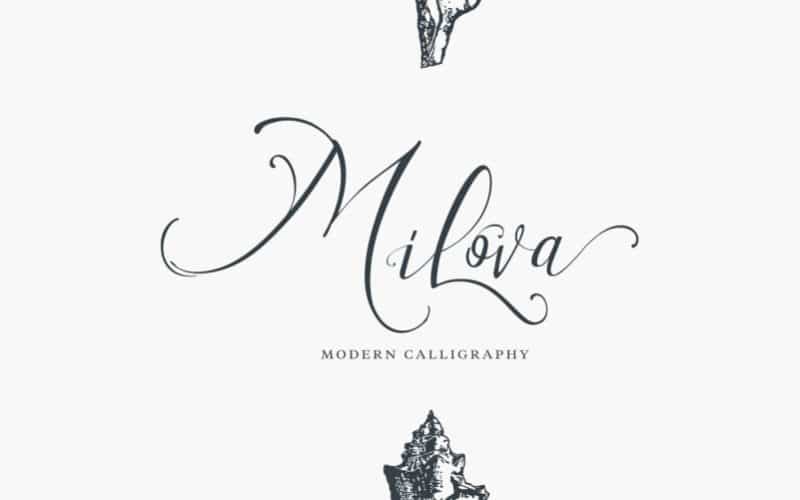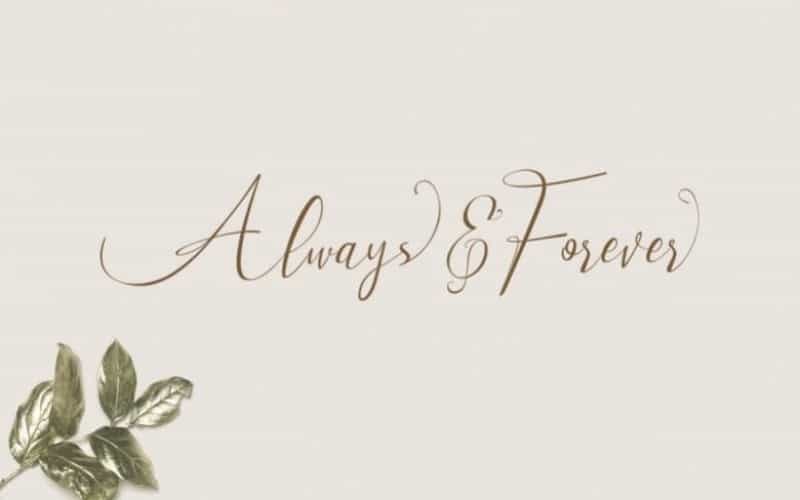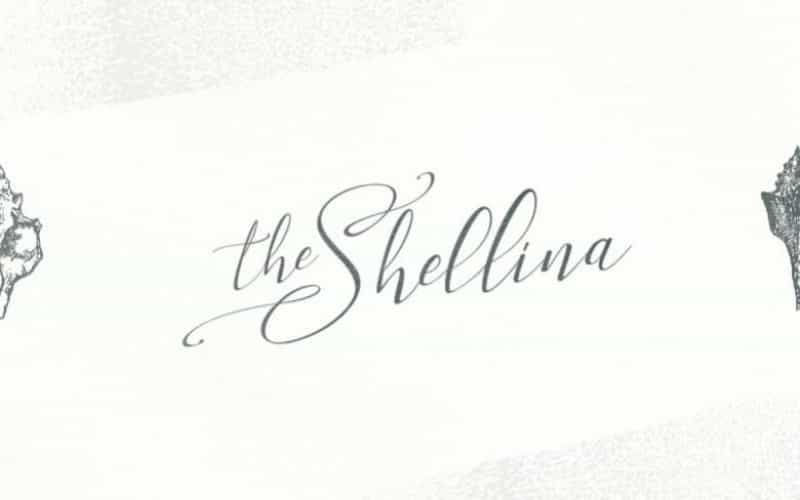
Milova is a font that has a special and modern style, with flexible lines that make the design look natural and attractive. It has more than 280 Glyphs, which include alternates on each character, so you can easily arrange a beautiful font for your wedding invitation card, book cover, logo, and many other things.